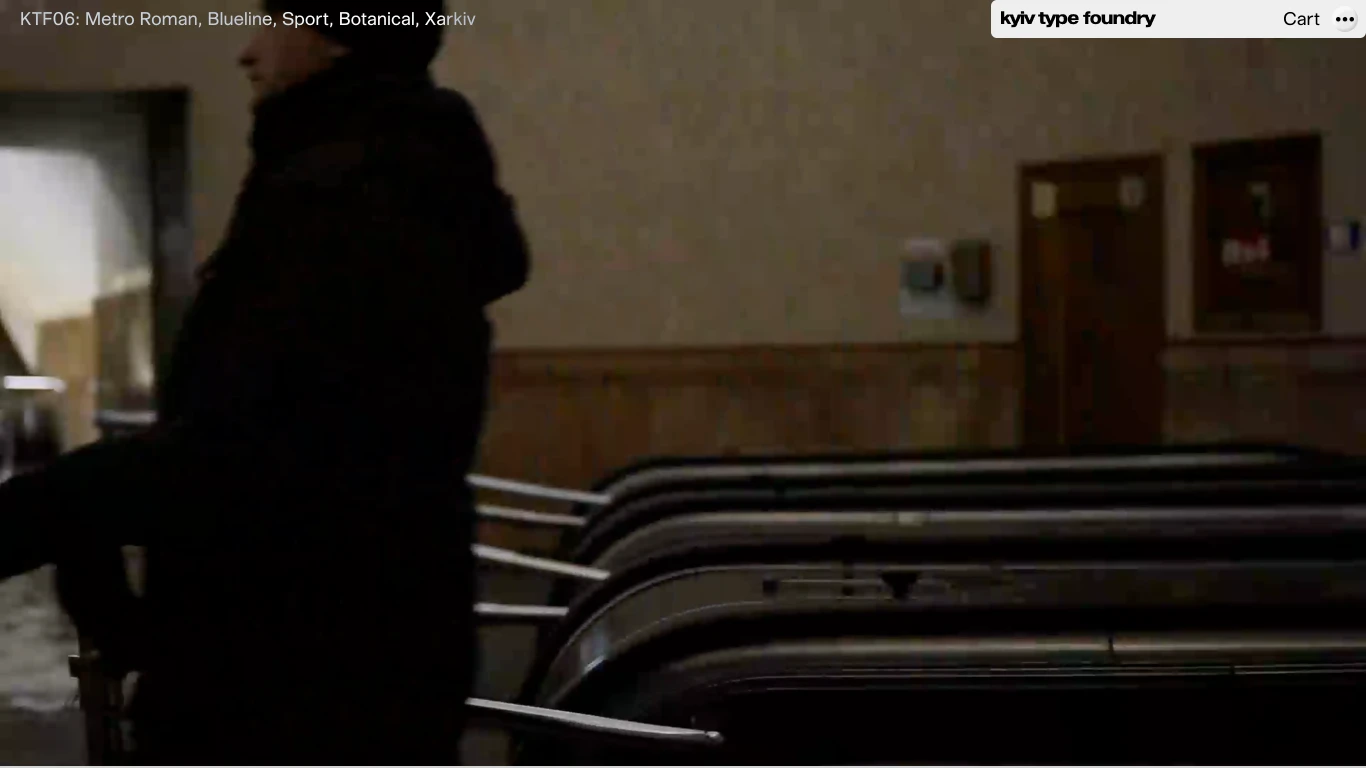
Kyiv Type Foundry
Ukraine; Montenegro; Germany; Spain
2021
Kyiv Type Foundry (KTF) is a type design studio founded in 2021 by Yevgeniy Anfalov and Oleś Gergun, working between Kyiv and Hannover. Merging Cyrillic heritage with contemporary design, KTF creates both retail and custom typefaces. Notable works include KTF Rublena, Prima, Compact, and the Metro Fonts revival—based on Kyiv’s original subway signage. Their typefaces have appeared in projects for the Kyiv Biennial, Maison Saint-Gervais, and OutSystems. In 2025, the Metro Fonts project received a Certificate of Excellence from the Tokyo Type Directors Club.